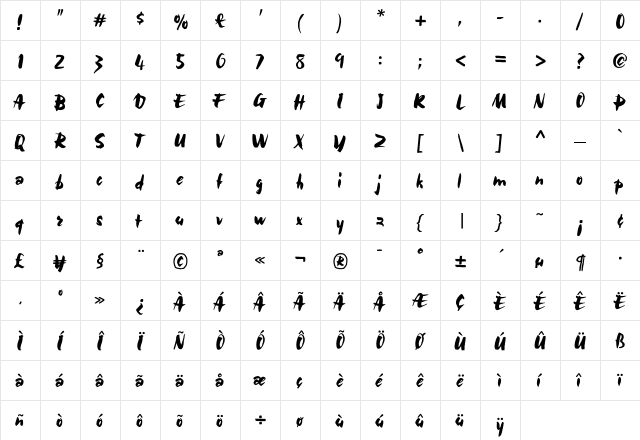
BolideScript Regular
Design Context for BolideScript Typeface
BolideScript flows with the natural rhythm of handwritten lettering, making it ideal for designs that call for warmth and personal expression.
Font Pairing: Combine BolideScript with a simple geometric sans for maximum contrast — the tension between flowing curves and clean structure is a classic typographic pairing.
Pro Tip: Use BolideScript for short runs of text — names, titles, or taglines. Extended body copy in script faces tires the eye quickly.